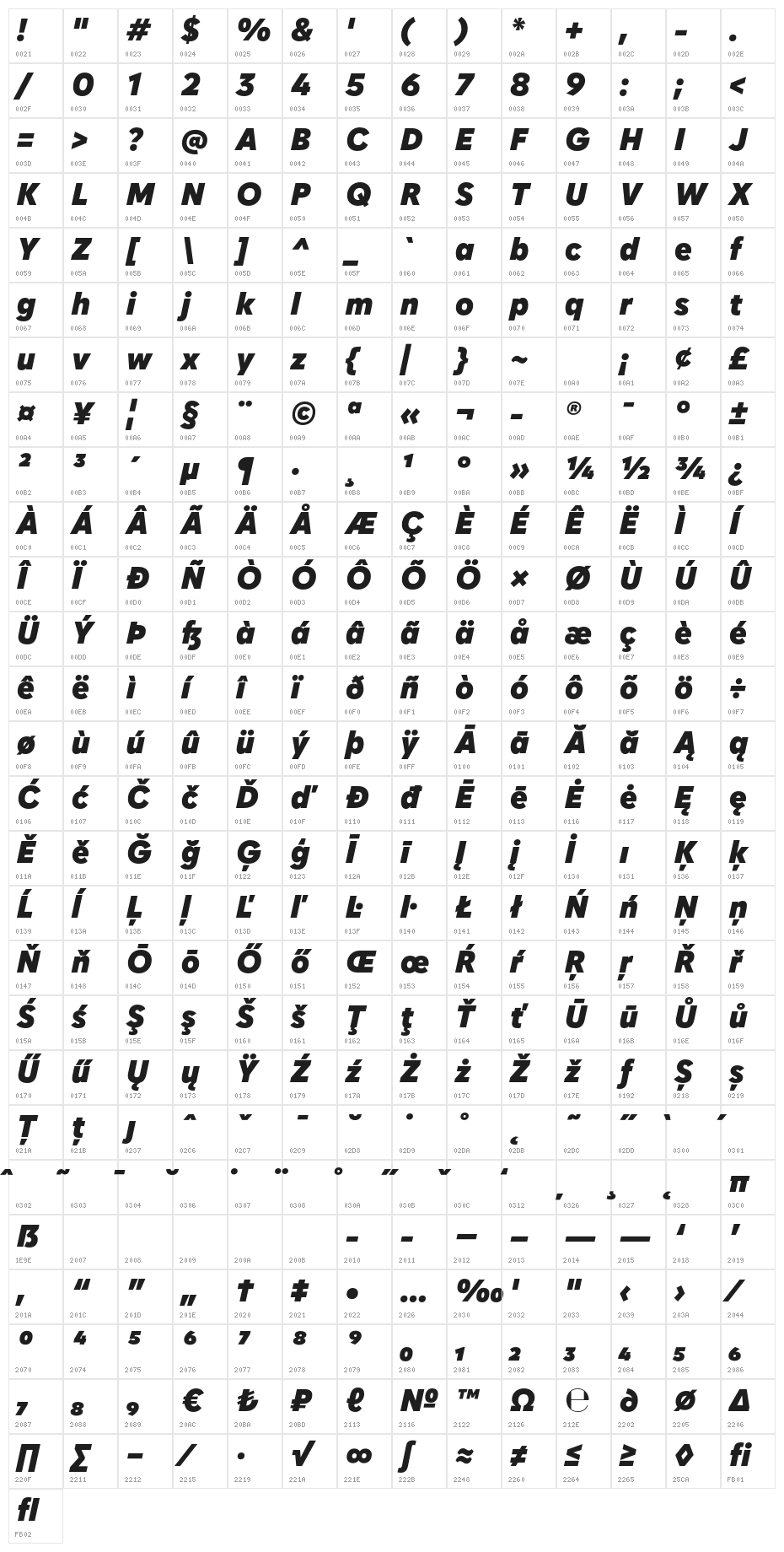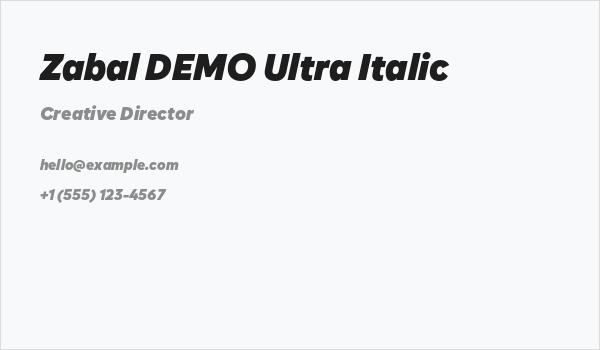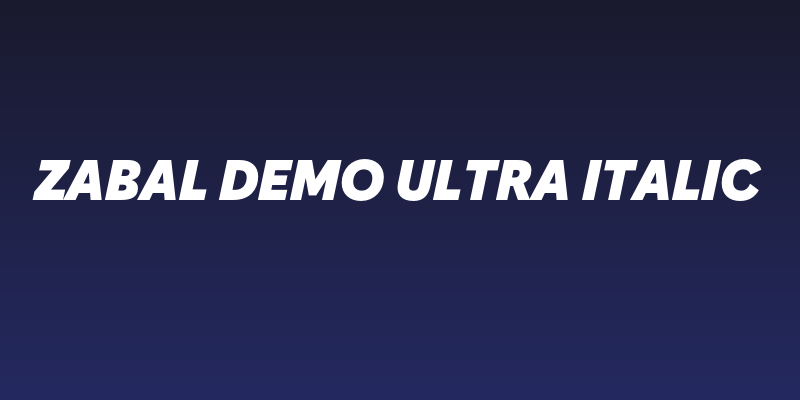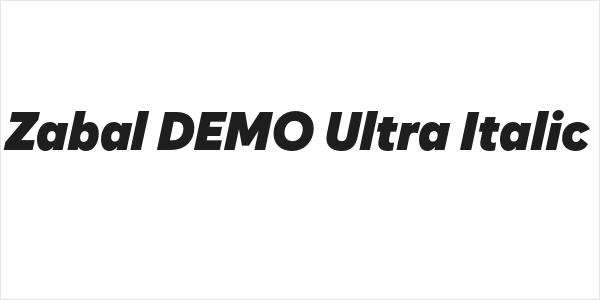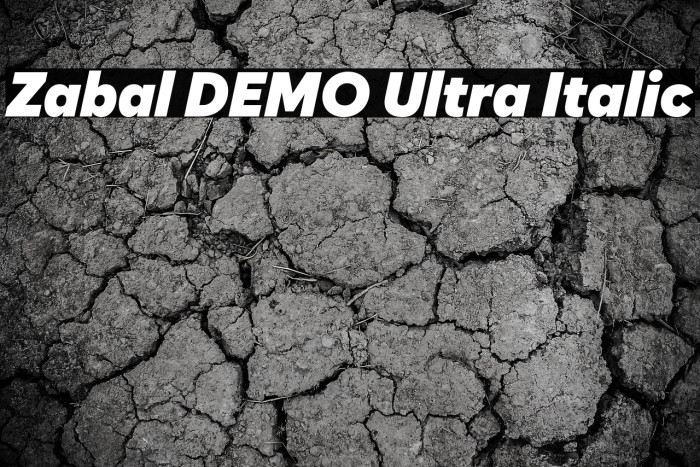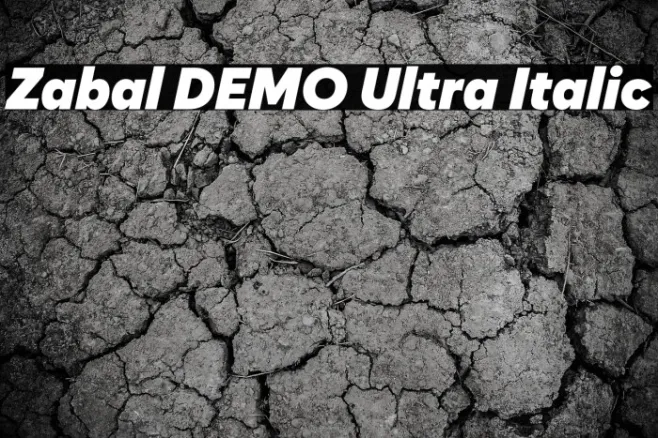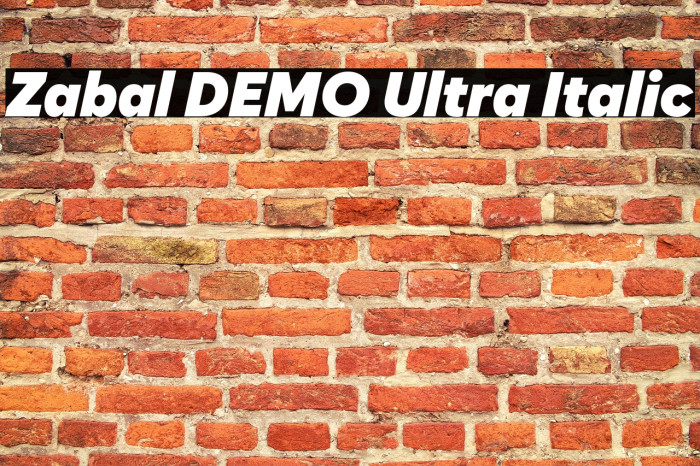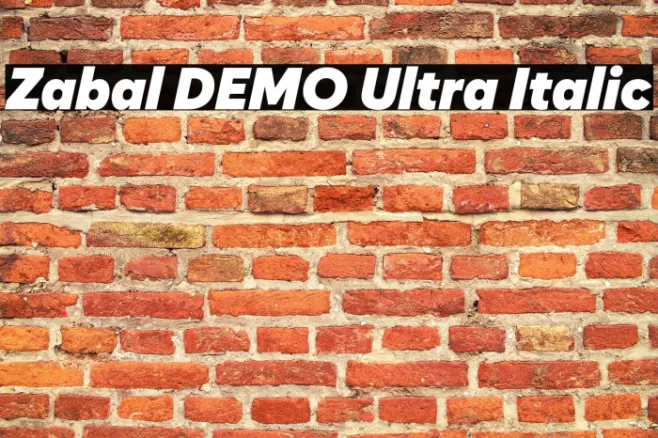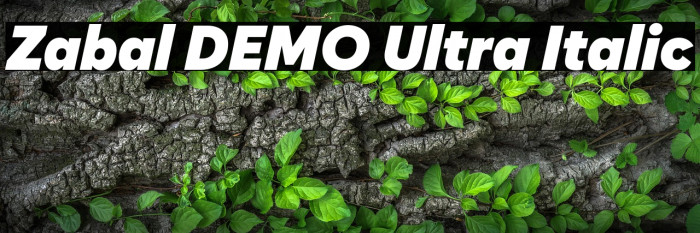
Zabal DEMO Ultra Italic Font
Zabal DEMO Ultra Italic Description
This font features a bold and dynamic style with a strong italic slant, giving it a sense of movement and urgency. The characters are thick and robust, providing a powerful visual impact. The uppercase and lowercase letters maintain a consistent weight, ensuring readability and uniformity. The numerals are equally bold, matching the overall aesthetic of the alphabet. Special characters are included, designed with the same boldness and italic angle, making them suitable for various contexts. The font's design is modern and assertive, ideal for making a statement.
| Use Case | Headlines, Logos, Advertising |
| Proposed Projects | Ideal for headlines, advertising, branding, and any project requiring a strong visual impact. |